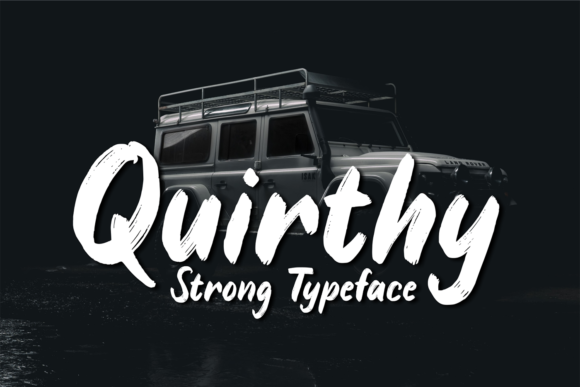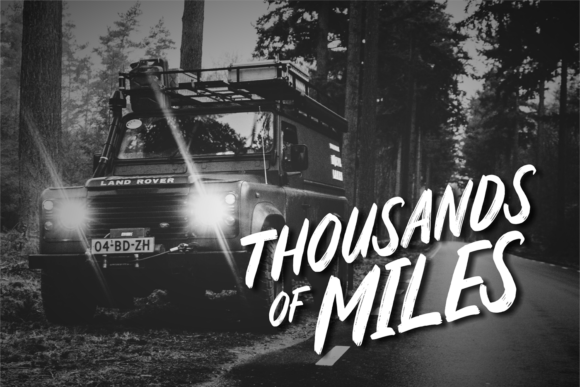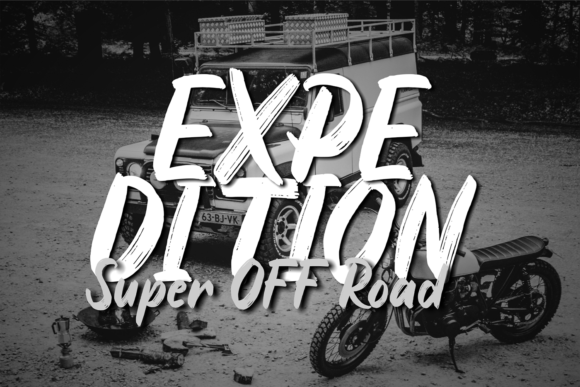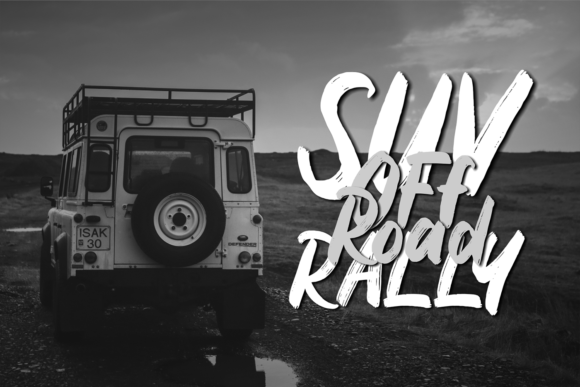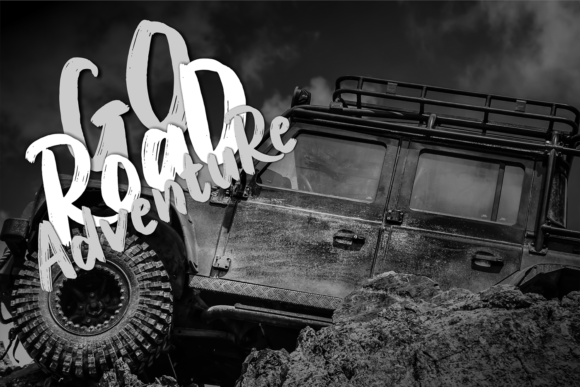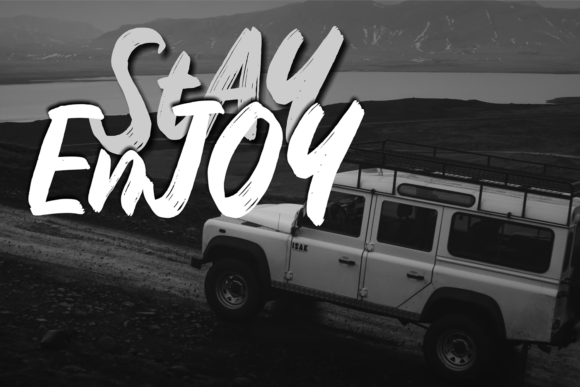
Quirthy Font
About Quirthy Font
Quirthy is a textured brush handwritten font. This fantastic font is best suited for headlines of all sizes, as well as for blocks of text that have both maximum and minimum variations. Whether it’s for web, print, moving images or anything else – Quirthy will look spectacular.